Guess what! We have new fonts!! :) As promised, the last 14 fonts of February are finally here!! And I made one extra just this afternoon, so there are 15 new fonts to download. Head on over to the Fonts for Peas blog and check ’em out! Download til your heart’s content. ;)
29 fonts in a little over a month! I think that’s a new record. ;) With all this font cuteness on the brain, I have been doodling like crazy lately. And somewhere in the mess of all that chicken scratch I came up two fonts of my own to share with ya’ll! So while you’re over there, sneak a peek at my two fonts: kevinandamanda & kevinandamanda funky!
Another new font this time is Pea Stacy Tunibug, a super cute alpha from the same gal who drew the awesome Pea Stacy’s Doodle fonts (The font is named after her puppy, Tunibug!)
And in case you’ve been wondering about (or drooling over :D) the font in my sidebar titles, I am happy to reveal it as Pea Heather’s Handwriting font! In addition to her totally hip alpha, she also has this doodle phrases font that is to die for!
There are so many more that wouldn’t fit in the picture! There are days of the week, months of the year, seasons, and lots of holiday greetings!!
In other news, I gave the main fonts page a bit of a makeover… I noticed through my webpage stats that it’s the most viewed page on my entire site. It gets more hits than even my blog! I had originally redesigned the new page to look like this:
Actually, you can still see a live version of this design here. I liked the design, but I didn’t know if it was obvious that you could click on the screenshots to go to the Fonts for Peas and Free Scrapbook Fonts site. With all the new traffic lately, if people landed on that page looking for the Fonts for Peas, I didn’t want them to be confused. So I redesigned it like this:
See the live version here. This design makes it much more obvious I think. ;) But what do ya’ll think? Do you like the new one (brown background)? The old one (blue background)? Do I use way too many graphics on this site?? (Wait, don’t answer that.) It’s really hard to be objective about your own site. *Ü*
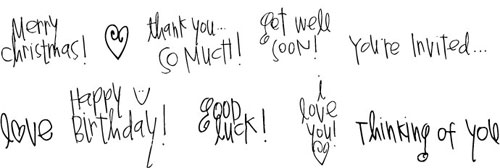
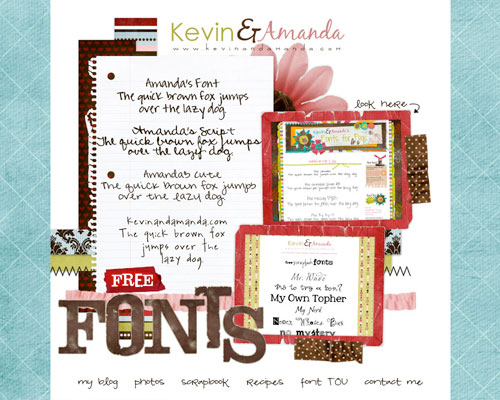
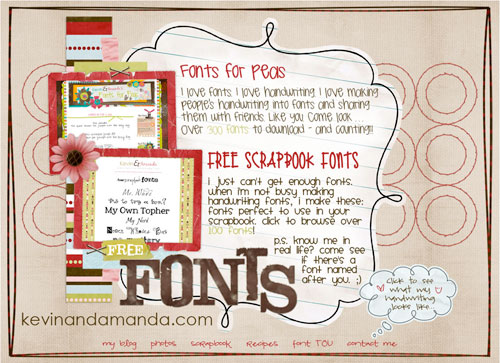
Amanda, first of all, thank you for sharing all your fonts!
Second, a question. I downloaded all the fonts a week or so ago. Where do I go to download only the latest ones? I don’t see a link to download the ones added yesterday. Do I have to either download them one by one or download the entire package again?
Hi Amanda,
I love your website. You are so talented. Everything you do is a like a work of art.
Cheri (BoBerry from WoofBoard)
As for which screen you asked about, I like the brown background. It’s kind of like that craft paper and that’s one of my favorite things to scrap with these days!
I love all these fonts…I need to set aside time to get them all!
Thanks!
Thanks for point that out Demetria. Try downloading the new file now and see if it works! :)
hey Amanda… WOWsers is all I got to say!!! Thanks for the great fonts! One thing though. The new kevinandamanda font won’t install without replacing the old kevinandamanda font. Seems they have the same file name…